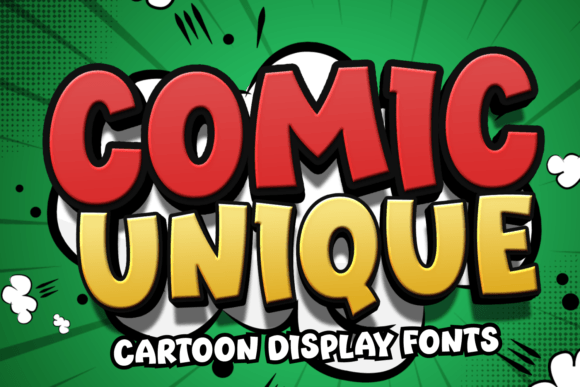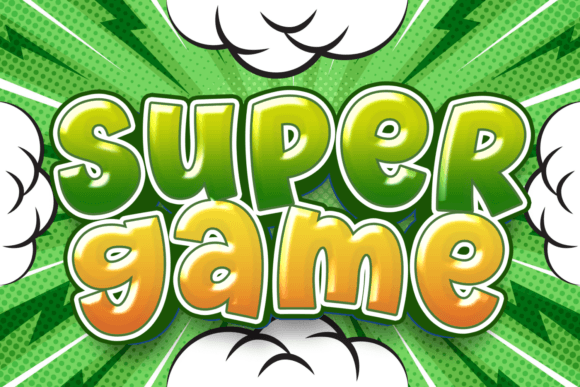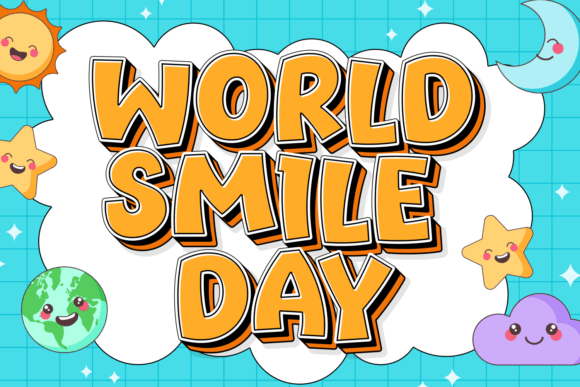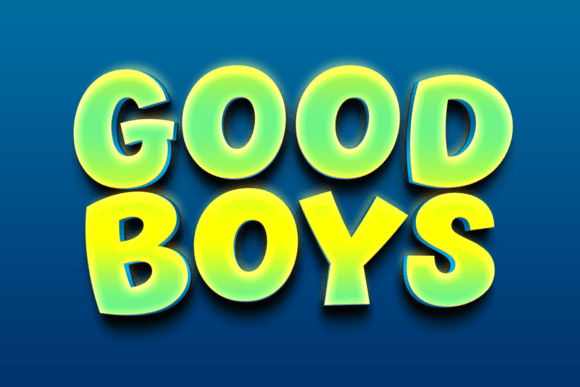
Comic Unique Font
About the Comic Unique Font
Let us introduce you to Comic Unique Font, where timeless design meets modern craftsmanship. Comic Unique is a cartoon display font. Comic Unique is tailor-made for superhero-themed designs, comic books, movie posters, and any pop culture-related projects. Its dramatic style captures the spirit of adventure and heroism, making it a go-to font for action-packed content.
Comic Unique’s bold, playful energy makes it ideal for headlines, posters, and branding projects requiring a strong visual impact. It excels in conveying excitement and dynamism, perfect for children’s books, game packaging, and superhero-themed merchandise. However, its highly stylized nature makes it unsuitable for body text or UI elements where readability is paramount.
Pairing Comic Unique with a clean sans-serif like Open Sans for body copy provides excellent contrast and readability. For a more playful feel, consider pairing it with a rounded geometric sans-serif such as Circular Std. A contrasting serif like Playfair Display could add a touch of sophistication to projects where a balance between playful and elegant is desired.
The font’s core personality is undeniably bold and playful, yet it retains a level of sophistication that prevents it from feeling childish. This allows it to successfully project energy and fun without sacrificing a degree of visual professionalism.
Comic Unique Font Usage Examples
Comic Unique Font Example